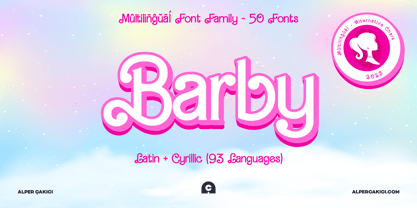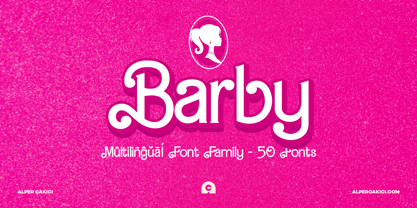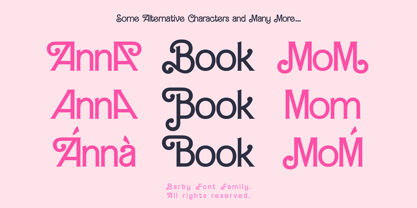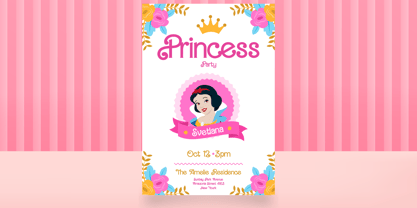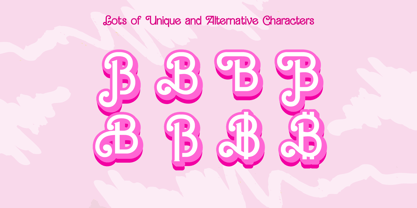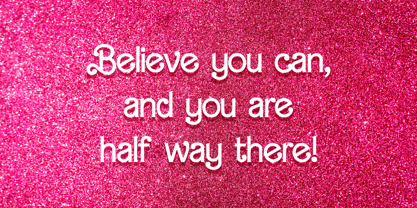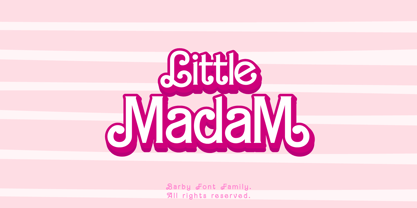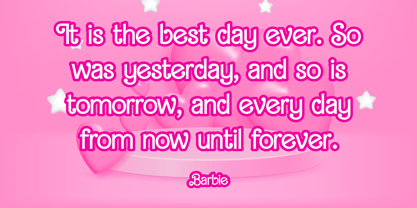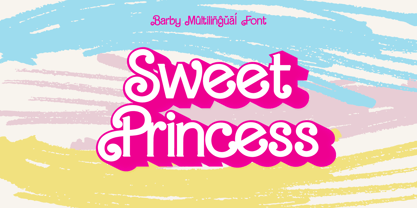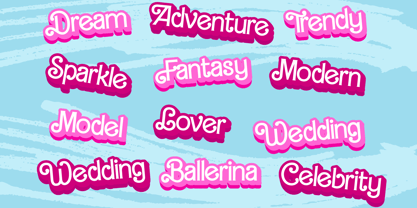
Barby
by AlperCakici
The Barby Font Family was designed by Alper Çakıcı and published by AlperCakici. Barby contains 60 styles and family package options.
Introducing Barby!
A playdoll inspired whimsical font straight out of a fairytale! This font is not just about letters; it's a magical journey with alternative characters that add a touch of enchantment to your designs.
With support for 103 languages, it's a versatile choice for creators worldwide. Embrace the girly charm and add a sprinkle of magic to your projects with this unique and delightful font.
Dive into a world of creativity with this unique and cute font that's sure to bring a beauty to your designs.